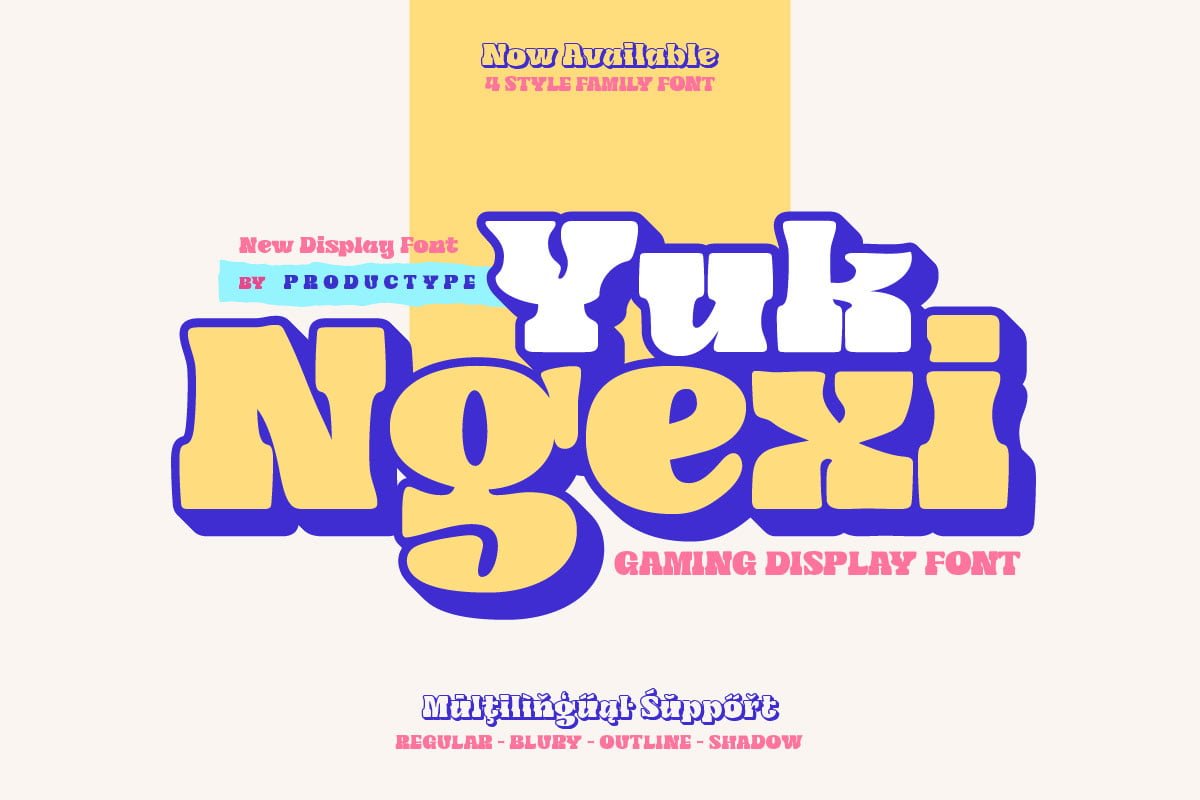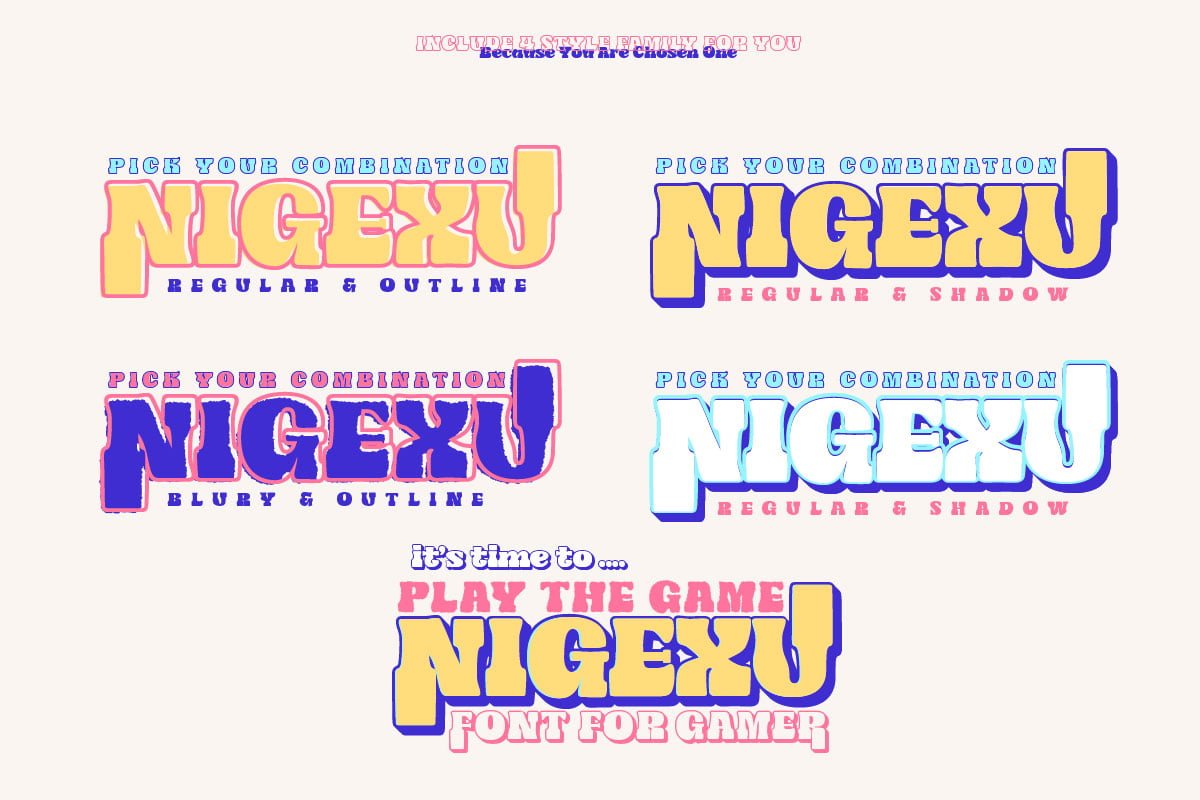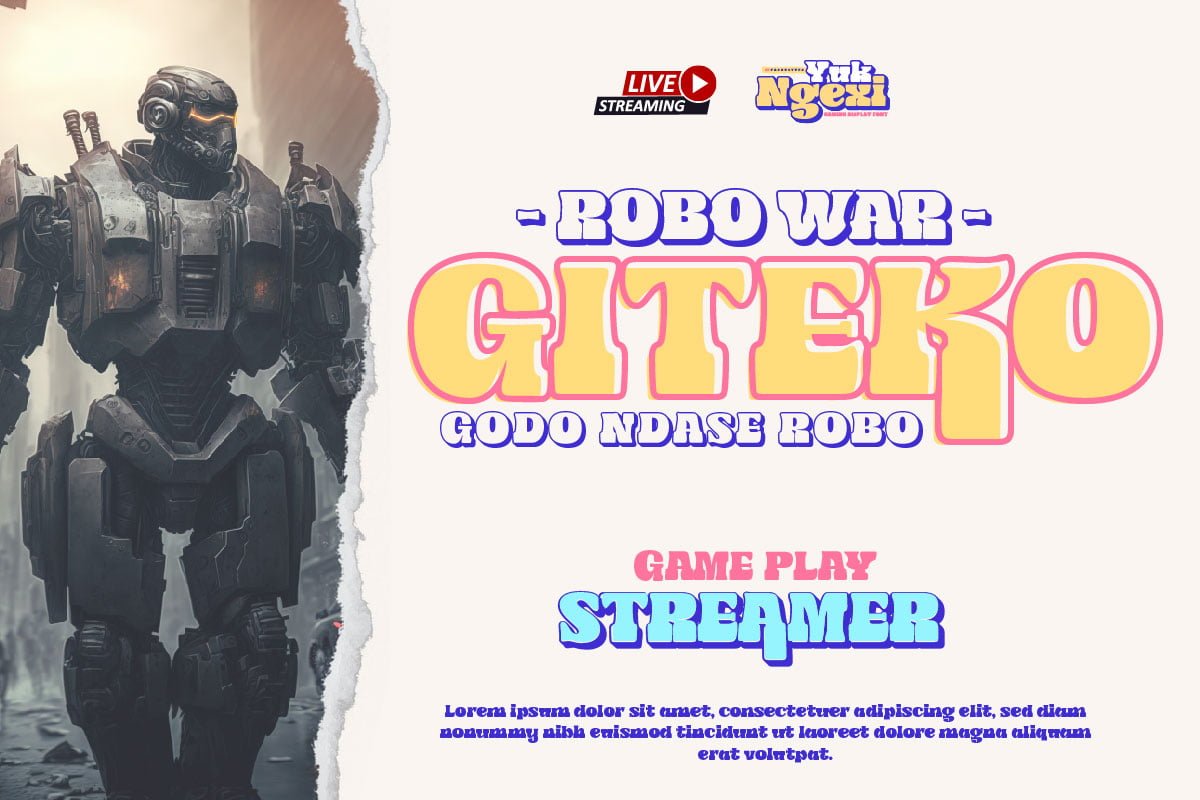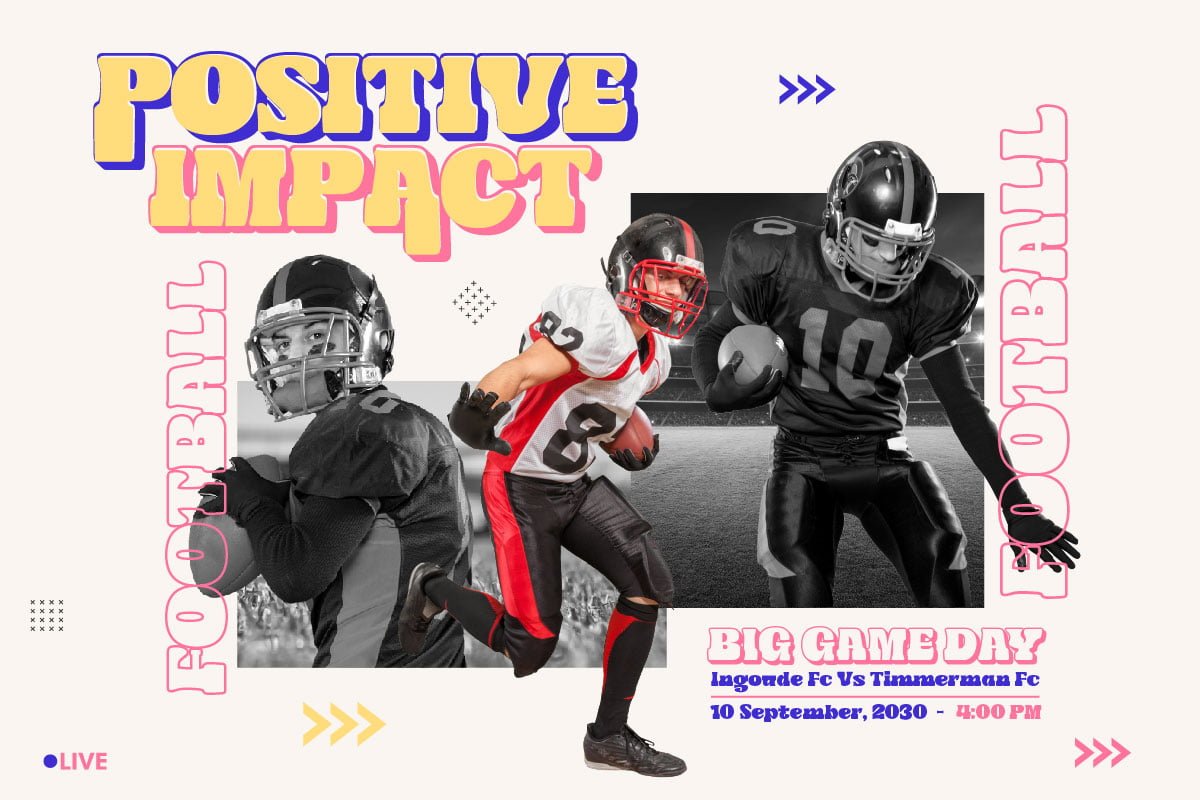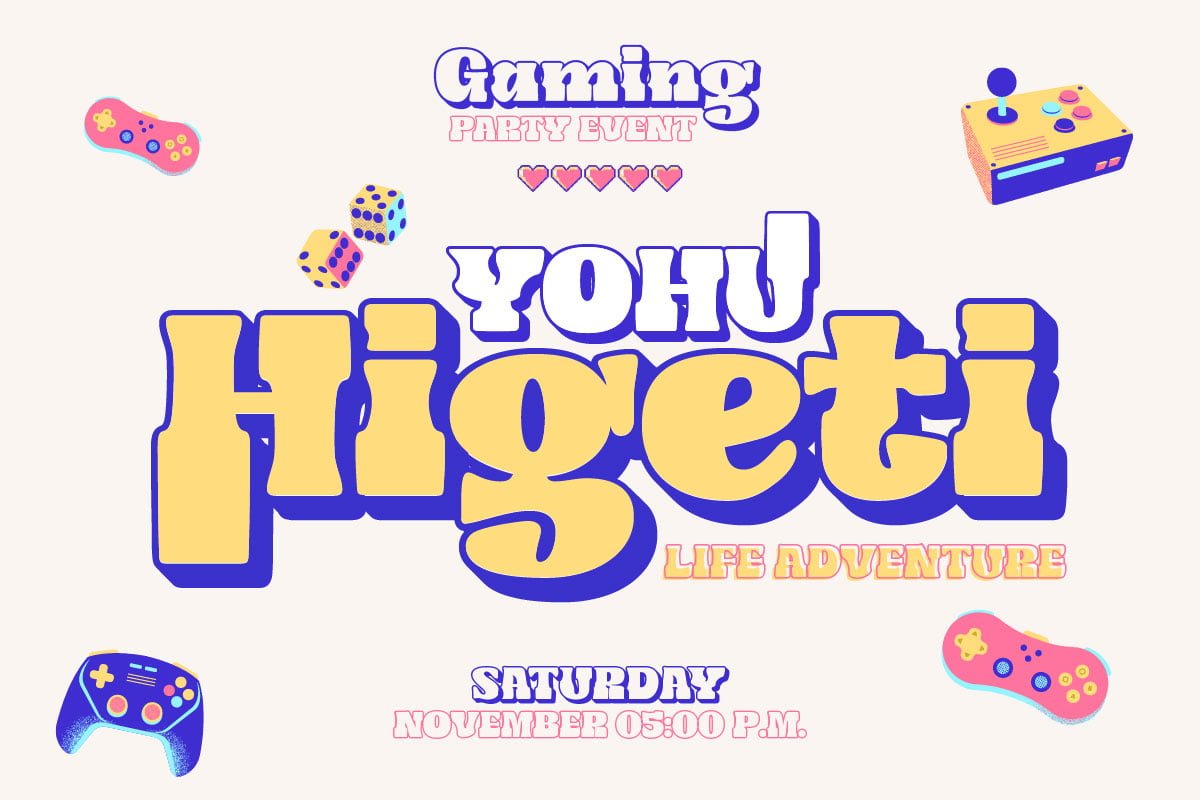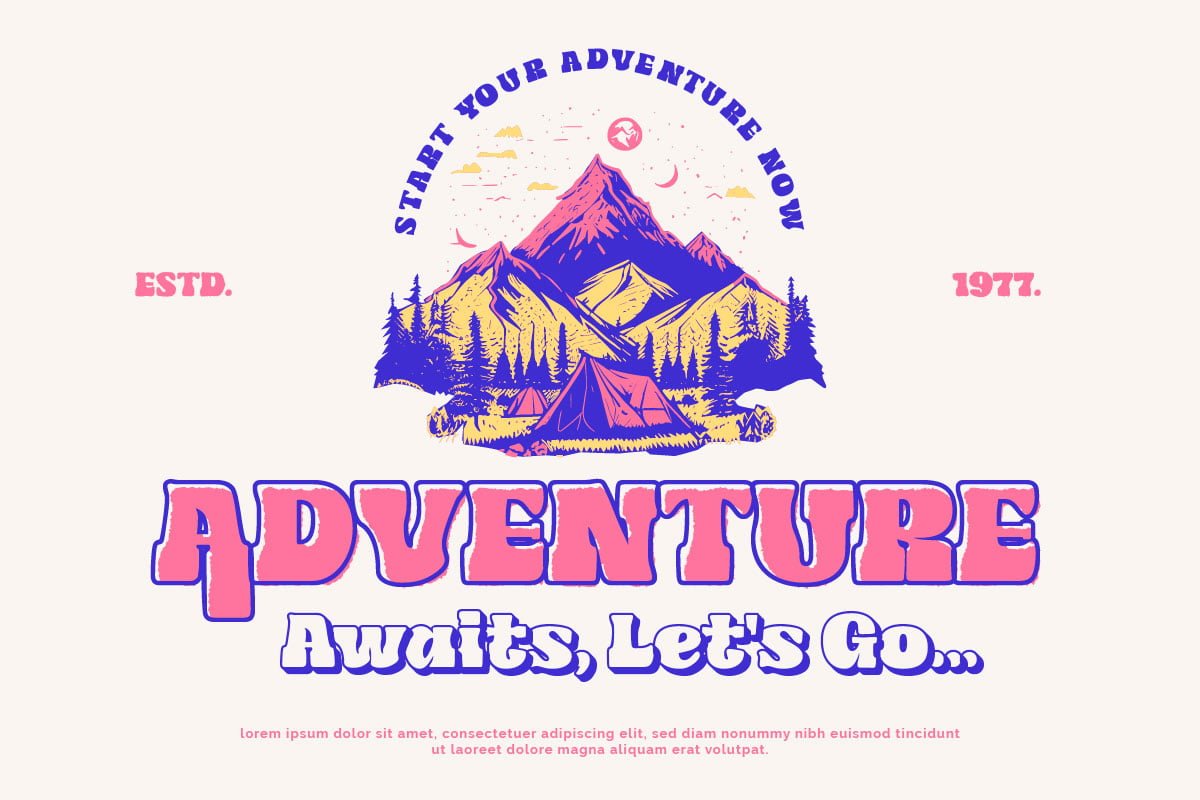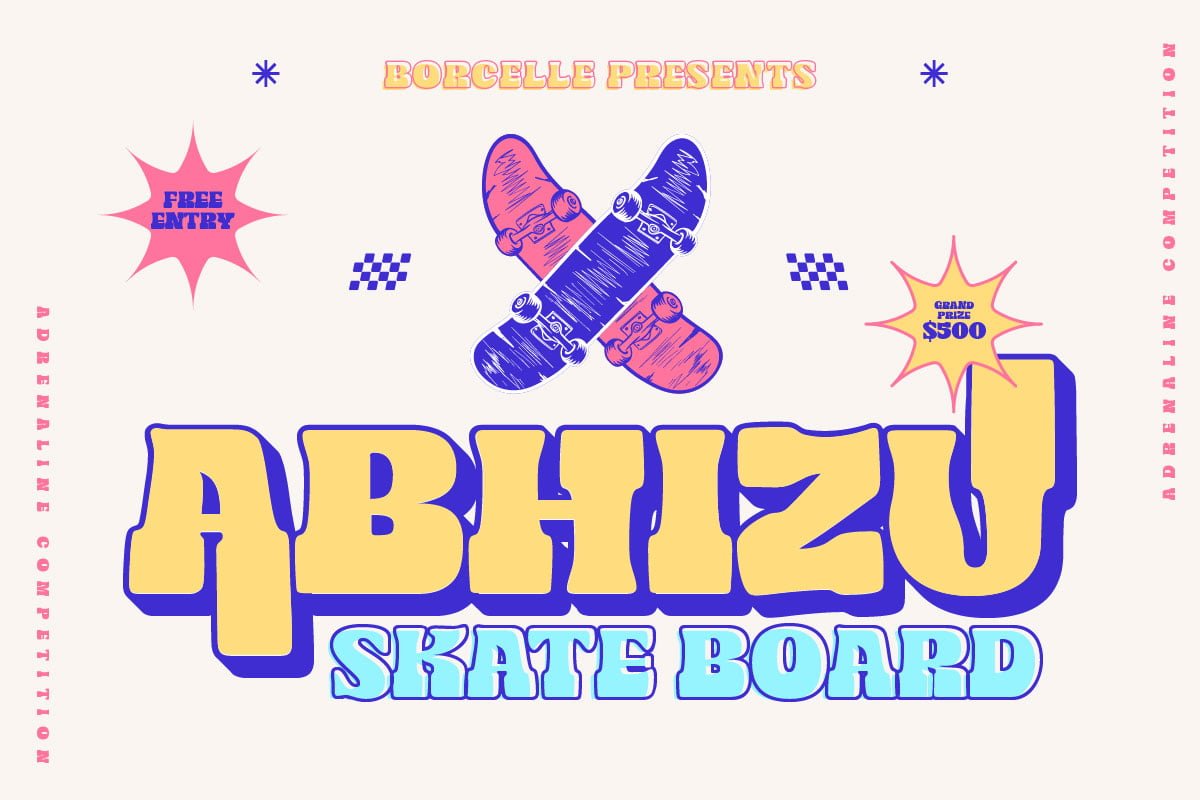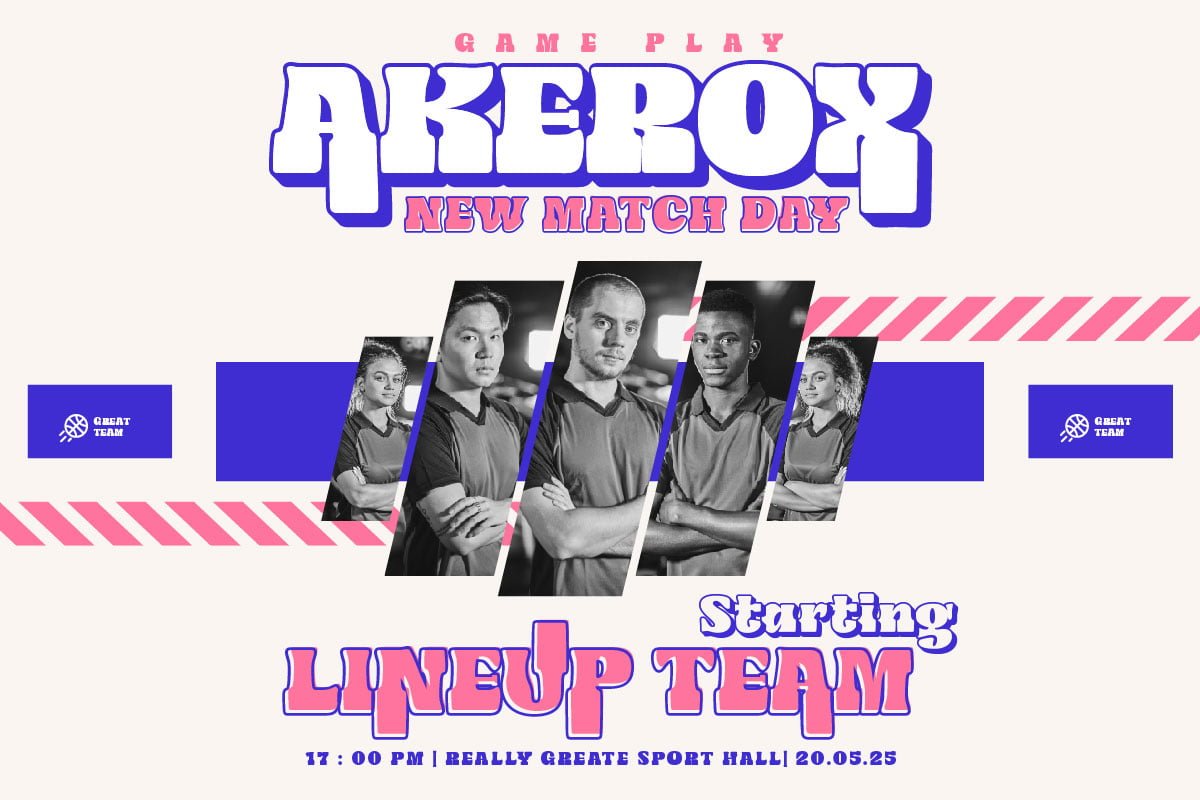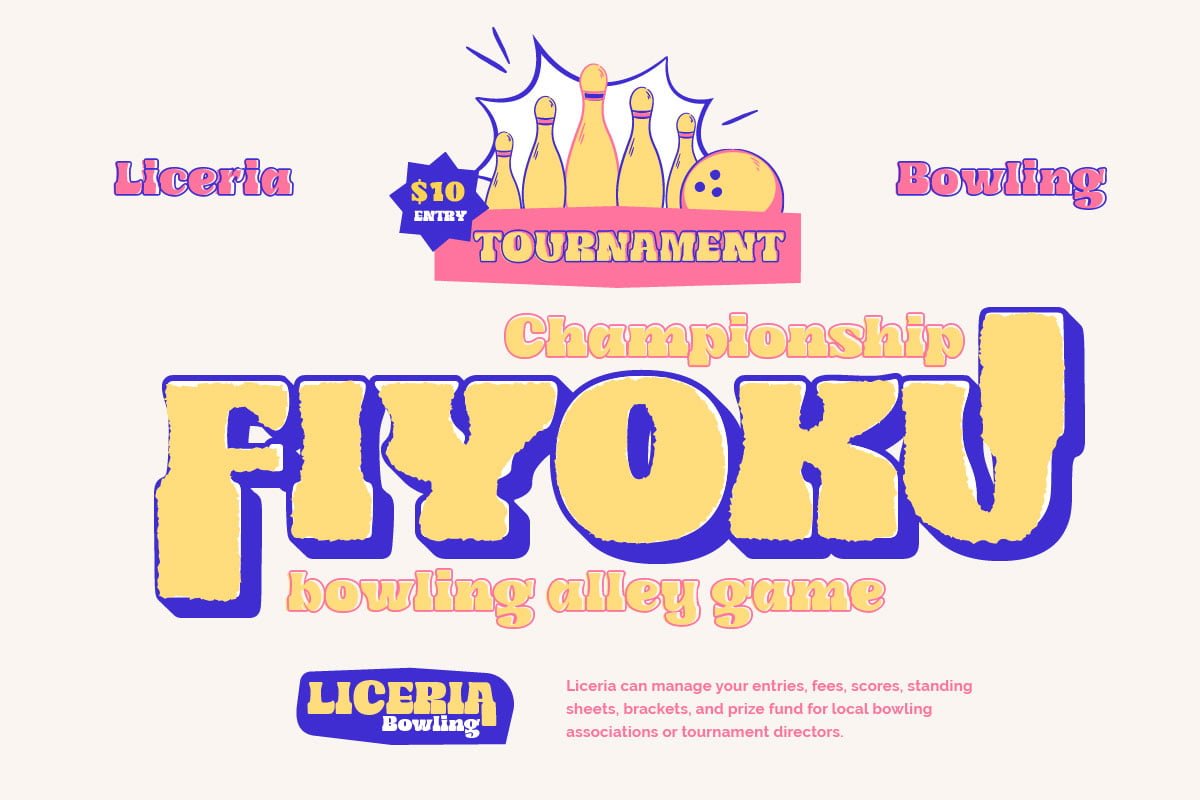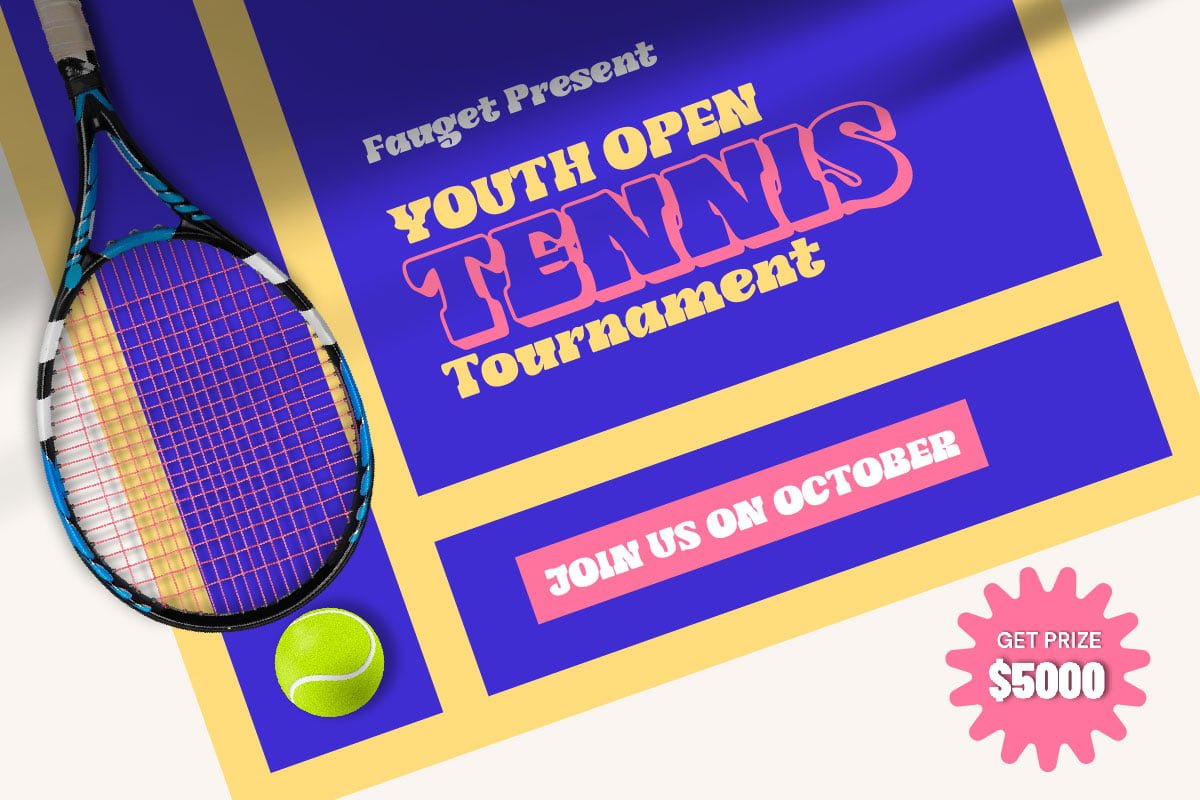
5. Yuk Ngexi – Display Gaming Font
Regular
Blury
Outline
Shadow
Meet the Yuk Ngexi Font: Strong, Bold, and Fun in Gaming Style.
Who says design has to be boring? With the Yuk Ngexi Font, you can bring a touch of power, thickness, and gaming style fun to your every project.
The Yuk Ngexi font is the perfect solution for various projects that require a unique theme. Whether it’s for movies, games, or streaming game events, this font provides unmatched appeal.
This font is designed with a strong gaming touch, giving each character a bold and striking feel. The Yuk Ngexi font comes in four different style variants: Regular, Blury, Outline, and Shadow. This gives you the flexibility to bring in a variety of nuances in your designs.
Yuk Ngexi also supports multiple languages, allowing you to connect with a global audience easily.
With Yuk Ngexi Font, you don’t just get a font, you get the key to bringing creativity, power, and fun to each of your designs.